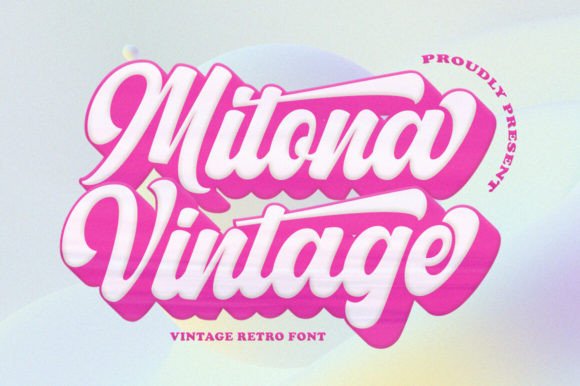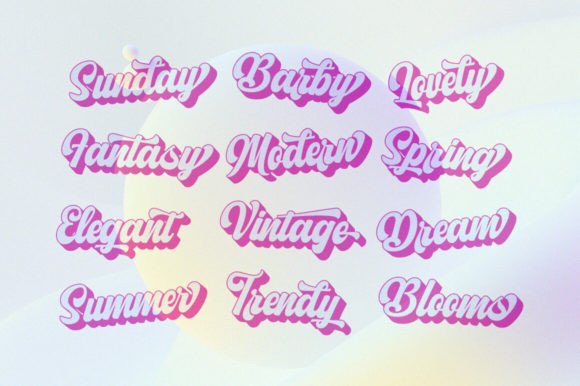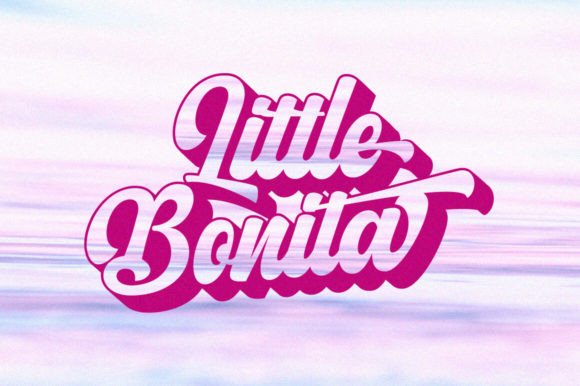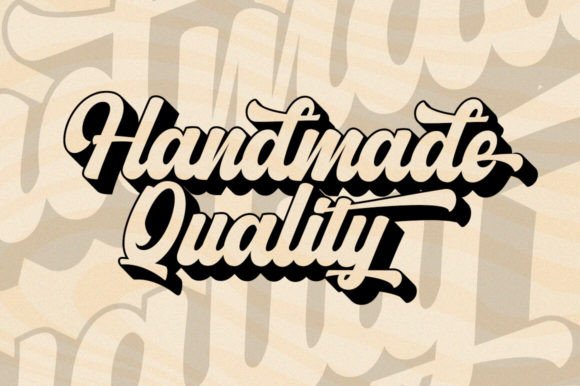
Mitona Vintage Font
About the Mitona Vintage Font
The Mitona Vintage Font is here to transform your projects with its distinctive character and style. Mitona Vintage font is a retro gem styled like a classic logotype letter, taking you on a nostalgic journey back in time. With its distinct retro flair and bold, eye-catching design, Mitona Vintage adds a touch of old-school cool to your projects. Perfect for creating standout logos, headlines, and branding that exude timeless charm and character.
Mitona Vintage’s bold, retro style makes it ideal for headlines, short impactful text on posters, and logo design where a strong vintage aesthetic is desired. It’s also effective in branding applications requiring a touch of nostalgic charm, such as coffee shops, vintage clothing stores, or craft breweries. However, its decorative nature makes it unsuitable for body text or UI elements where readability is paramount. Avoid using it for lengthy paragraphs or small sizes.
Pairing Mitona Vintage with a clean sans-serif like Montserrat or Open Sans provides a modern contrast that balances its retro feel. For a more vintage-inspired pairing, consider a classic serif font such as Garamond or Playfair Display. These combinations offer readability alongside Mitona’s eye-catching display qualities.
The overall personality of Mitona Vintage is bold and nostalgic, conveying a sense of confident retro style. It’s a font that commands attention and is best suited for projects that aim to evoke a feeling of timeless quality and classic appeal.
Mitona Vintage Font Usage Examples
Mitona Vintage Font Example